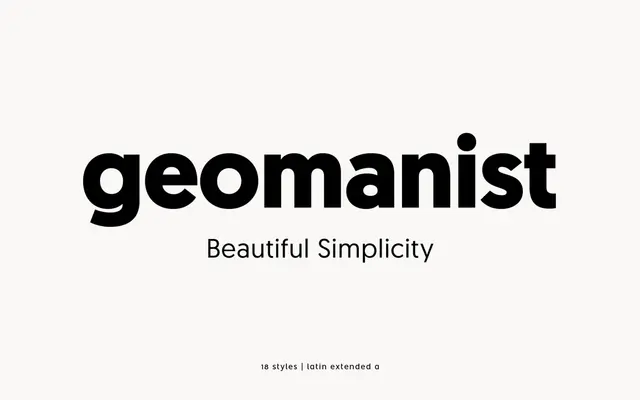
Geomanist
atipo foundry · Raul Garcia del Pomar, Ismael Gonzalez · 2014
Geomanist specimen from atipo foundry
A geometric humanist sans by atipo across nine weights with italics, suited to identity, editorial and interface work that needs warmth and range.
A geometric humanist sans by Raul Garcia del Pomar and Ismael Gonzalez at atipo foundry, with nine weights from Thin to Ultra and matching italics. Geomanist carries tabular figures, fractions, superiors and ordinals and case-sensitive forms in its OpenType layer, with broad Latin language coverage. The drawing softens the geometric model with humanist proportions, sitting between Futura and Avenir in tone, and works as a workhorse across identity, editorial and screen.
A geometric sans with humanist warmth, sitting between Futura and Avenir in tone but with its own slightly softer rhythm. Nine weights from Thin to Ultra with matching italics make it a workhorse for identity, editorial and screen.